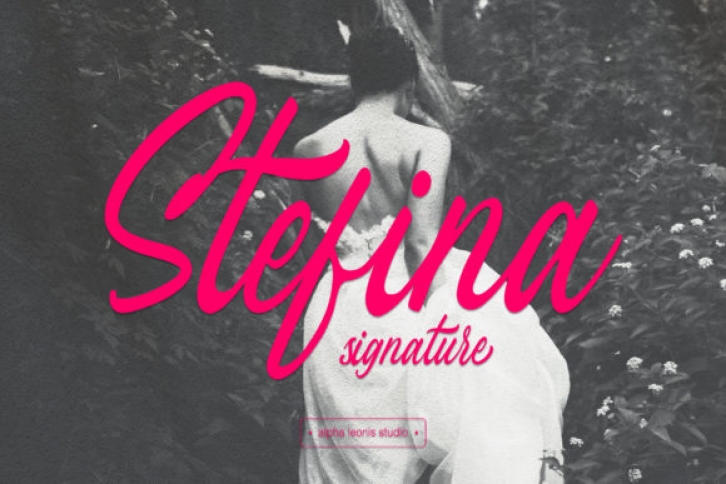
Stefina Signature is a lovely and flowing script font. It can be used for a variety of romantic or personalized designs. Stefina Signature is well balanced and delicate. Fall in love with its versatile style and it will shortly become your go-to font no matter the occasion.